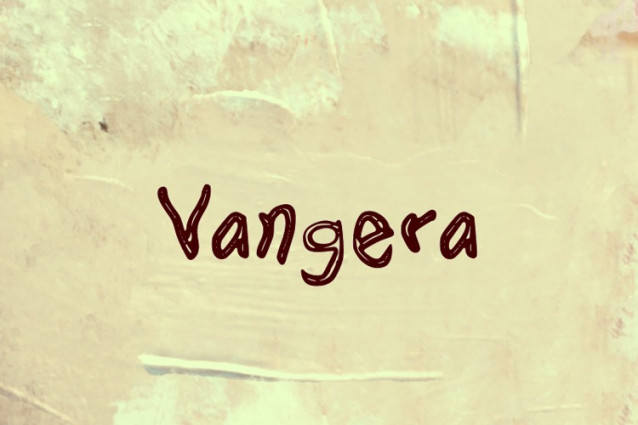
Vangera Font
Vangera Font, perfectly fit for branding, logo, wedding things, greeting cards, fashion, lookbook, marketing promotion, anytime you want to look fancy elegant but still casual.